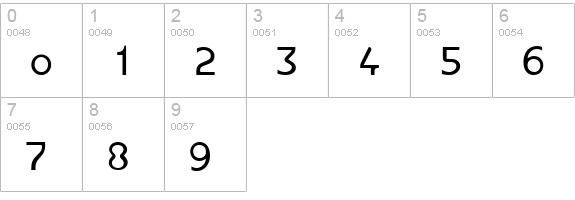
Gerstner Original Light Font Details
The Gerstner Original Light font is a timeless and elegant typeface that exudes sophistication and clarity. Its sleek and modern design makes it perfect for a wide range of design projects, from branding to editorial work. The clean lines and balanced proportions of this font make it both versatile and easy to read, making it a popular choice for designers looking to make a statement with their typography. What sets Gerstner Original Light apart is its unique blend of classic and contemporary elements, giving it a distinctive look that is both stylish and refined. Whether you are creating a logo, a website, or a print advertisement, this font is sure to add a touch of class to your work. Best of all, Gerstner Original Light is available for free download at FontsMarket.com. So why wait? Add this beautiful and versatile font to your collection today and elevate your design projects to new heights.